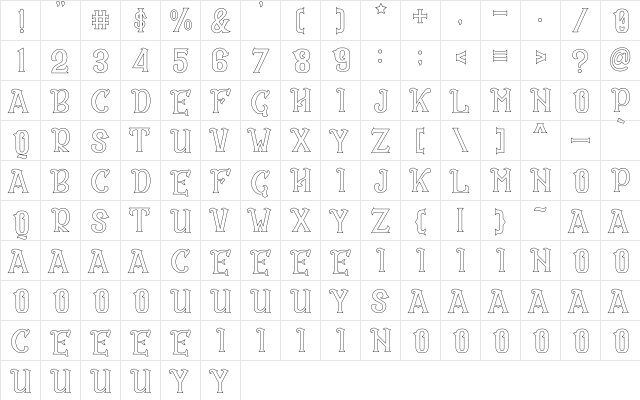
CS Rosalia Outline Regular
Design Context for CS Rosalia Outline Typeface
CS Rosalia Outline is built around its visual character rather than neutral utility — its distinctive forms are designed to make an impression at display sizes.
Font Pairing: Pair with a clean neutral sans-serif for body copy to let CS Rosalia Outline's character lead without overwhelming the composition.
Pro Tip: Use CS Rosalia Outline exclusively at display sizes — it was designed to be seen, not read at length. Let a neutral companion handle body copy.